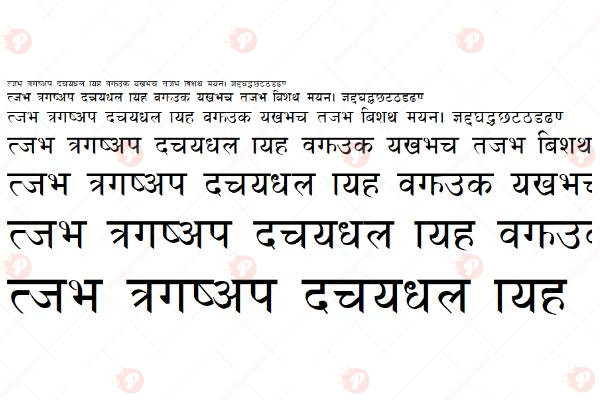
The Devanagari Bold Font is a strong and impactful typeface, perfect for headlines, posters, banners, logos, branding, and display typography. Its bold weight ensures your designs grab attention and make a statement.
Ideal for digital and print projects, Devanagari Bold brings confidence and style to every creative work, making it perfect for designers seeking clarity and impact.
Style: Bold / Strong / Display Typeface
Perfect for: Headlines, Posters, Banners, Logos, Branding & Display Typography
Make your designs bold and striking with the Devanagari Bold Font.
| Optimum Size | Large (Display / Poster) |